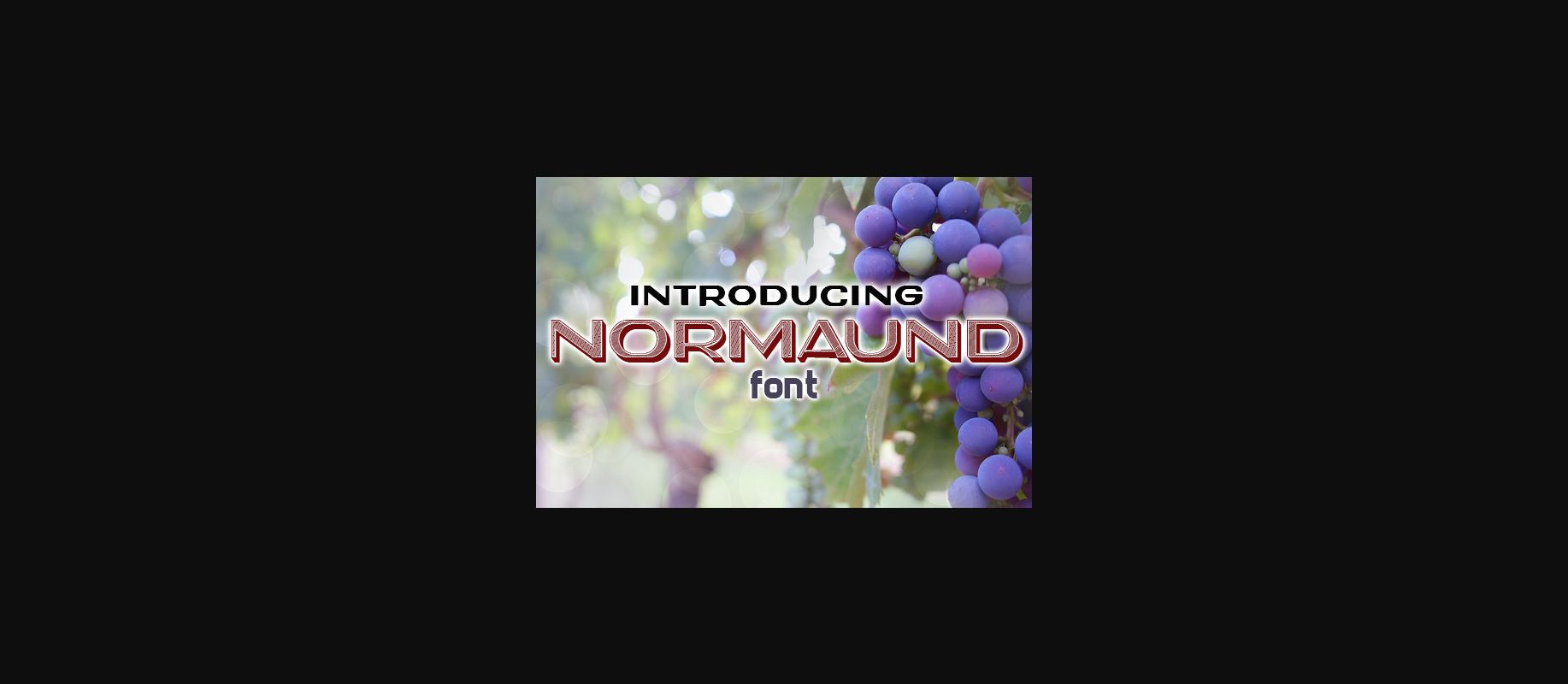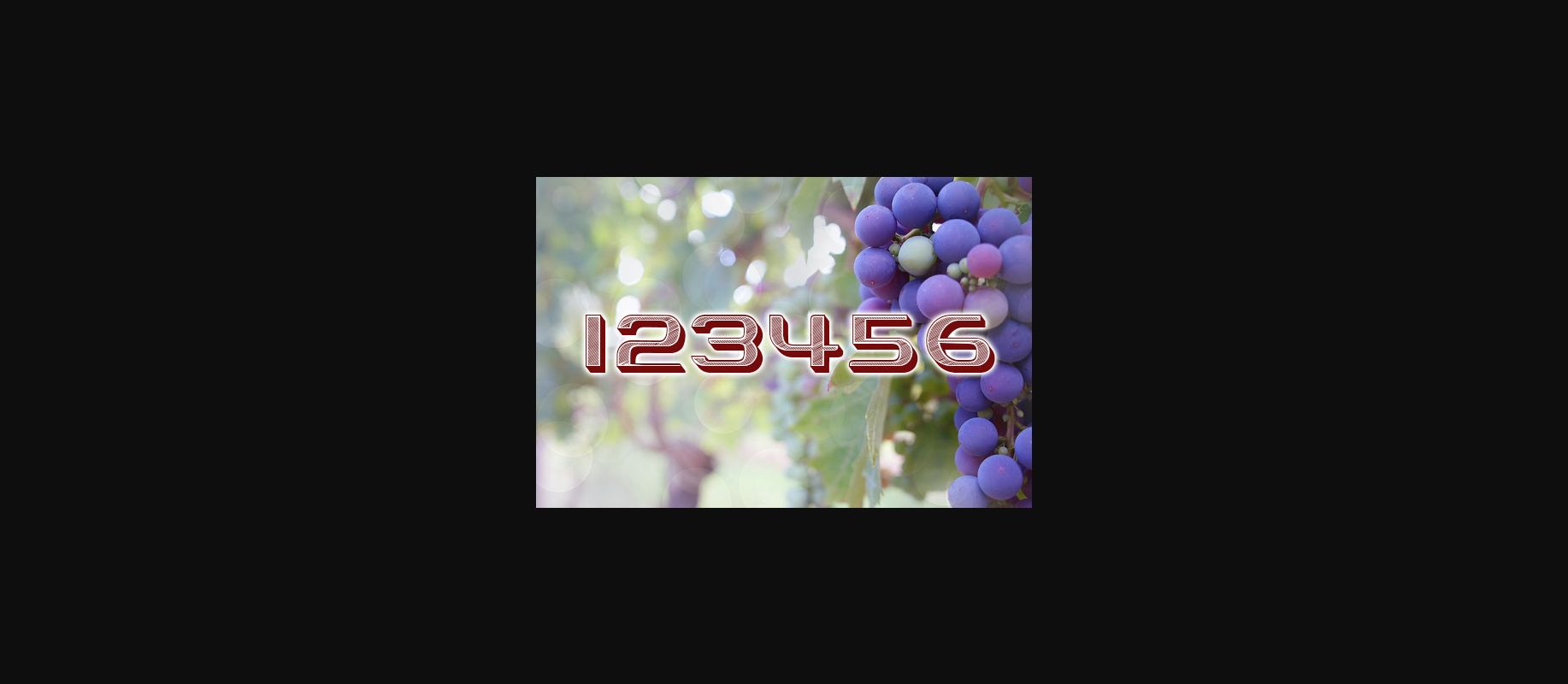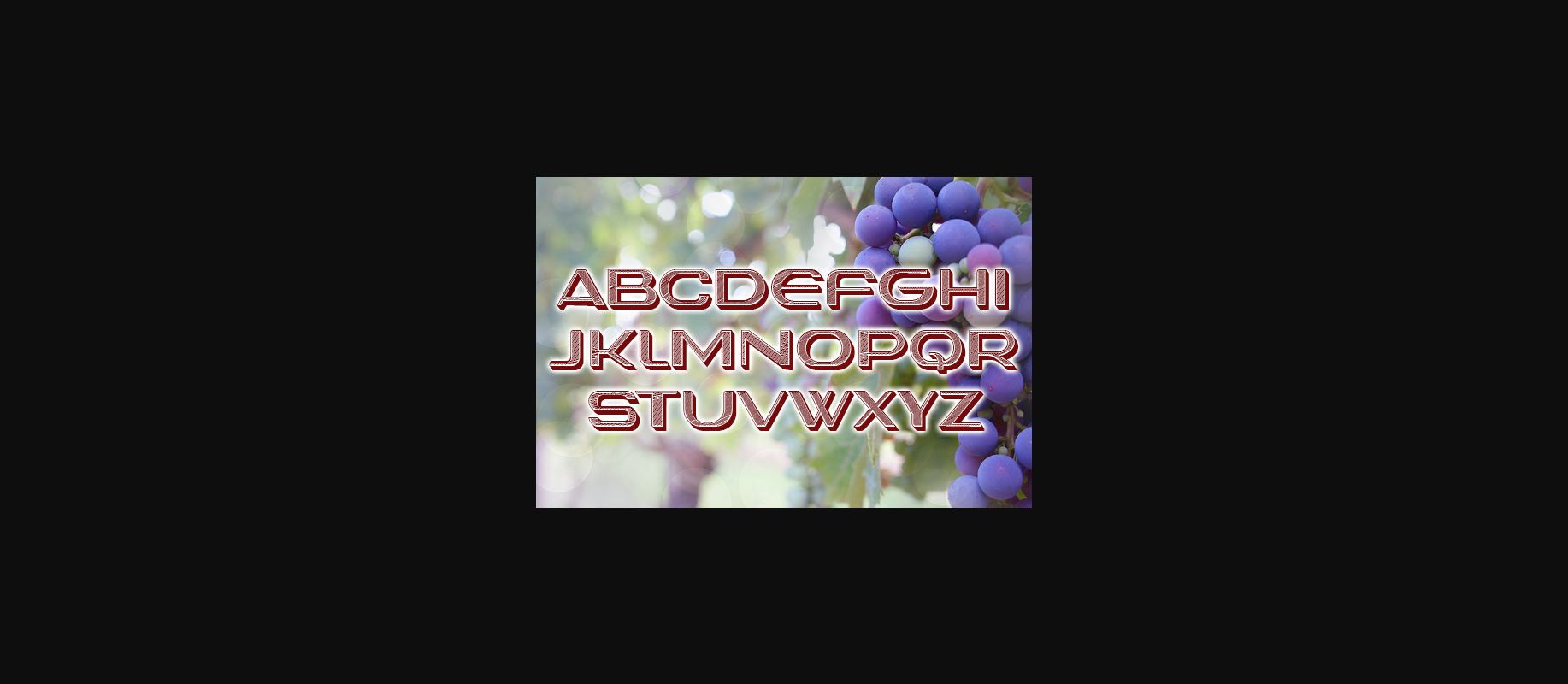
Normaund Font
About Normaund Font
Normaund is an elegant 3D font that will take Your designs to a next level.
Use this font on posters, flyers, and t-shirts.